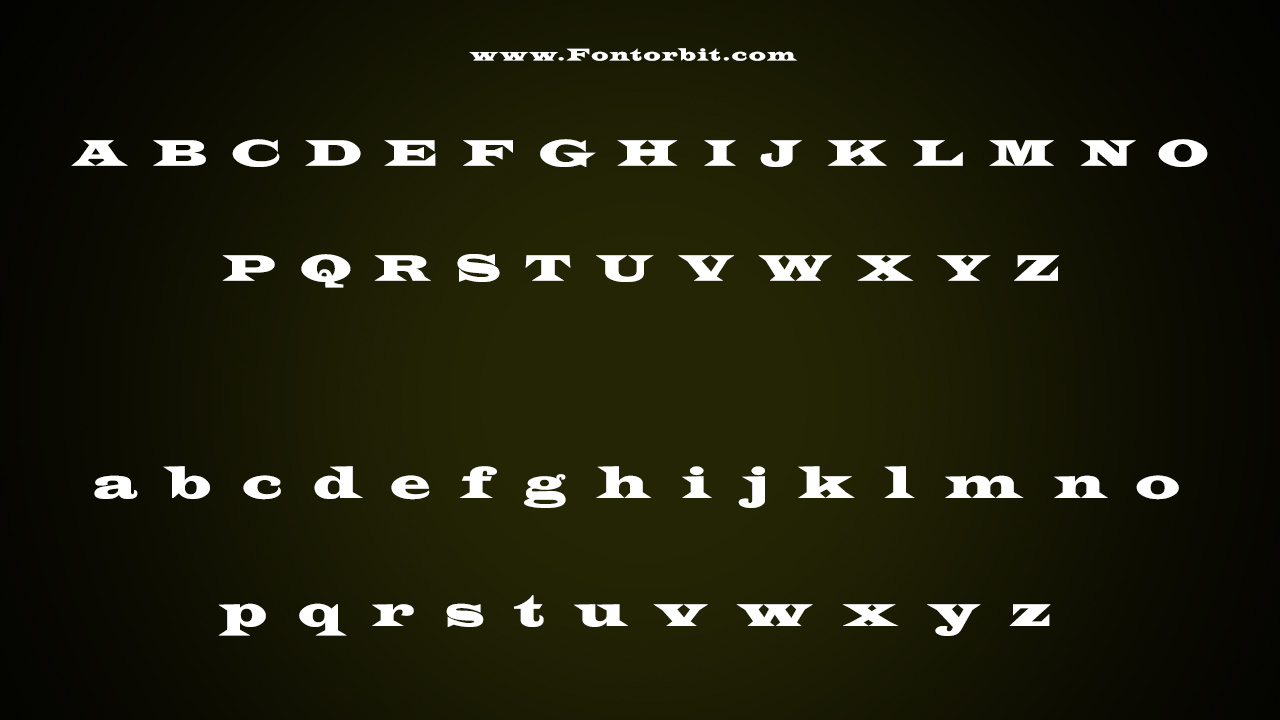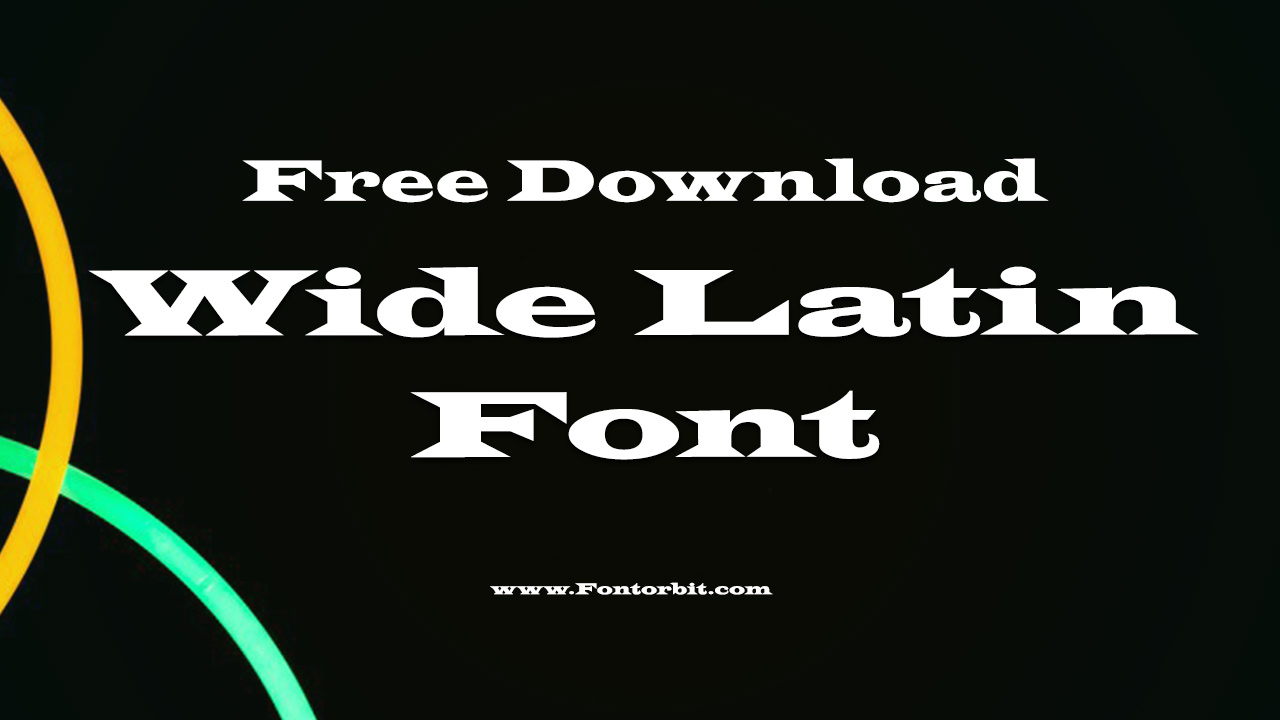
The Wide Latin Font, first released by Stephenson Blake in 1883, has become a classic in typography, known for its distinctive and versatile design.
This typeface is celebrated for its wide proportions and strong presence, making it a popular choice for various applications, from logotypes to speed-themed designs.
The Wide Latin Font supports a wide range of Unicode blocks. Digital versions include adaptations such as Latin No. 2 by Monotype, Latin Wide by URW, and Latin CT Wide by CastleType. This font’s design includes wide letterforms and, in some cases, oblique styling to evoke a sense of speed.
The Wide Latin Font is ideal for bold and impactful designs. Its wide proportions and distinctive style make it perfect for logotypes, headlines, and any design that needs a touch of boldness and character.
The Wide Latin Font offers a bold, wide style that has stood the test of time since its introduction in the 19th century.
Its versatile design makes it an excellent choice for logotypes, headlines, and other high-impact applications. Available in various digital versions, it provides a strong and distinctive option for your typographic needs.
1.What Is The Wide Latin Font?
The Wide Latin Font is a classic typeface originally released by Stephenson Blake in 1883. It is used for various applications, including logotypes and speed-themed designs.
2.Who Designed The Wide Latin Font?
Stephenson Blake designed the Wide Latin Font, which has been adapted into various digital versions, including Latin No. 2 by Monotype and Latin Wide by URW.
3.What Are The Key Features Of The Wide Latin Font?
The font features wide letterforms and, in some versions, oblique styling that conveys a sense of speed and impact. It supports a wide range of Unicode blocks.
4.How To Use Wide Latin Font In Branding?
Use it for logotypes, headlines, and advertising to create a strong visual impact. Its wide proportions and bold design make it ideal for high-visibility applications.
5.What Are The Alternatives To The Wide Latin Font?
Similar fonts include Orgreave Extended Bold, Dynamo, Asset, and MAXBaerOpti-Wide, which offer comparable wide and bold styles.